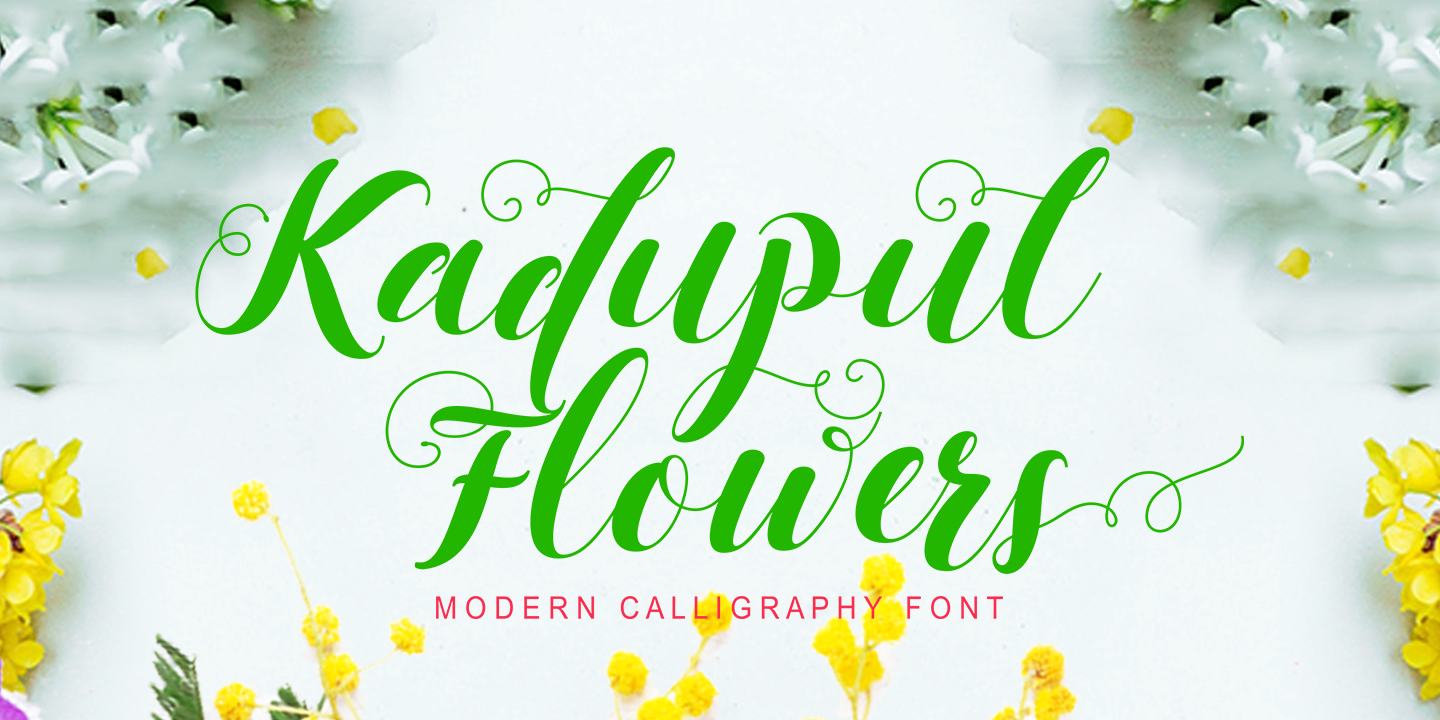
The Kadupul Flowers Font is an exquisitely delicate and enchanting display typeface, often characterized by its flowing, organic lines and a serene, almost ethereal beauty inspired by the rare and ephemeral Kadupul flower. Imagine its graceful characters gracing the covers of spiritual or wellness guides, adding a touch of mystical elegance to high-end spa branding, or creating captivating titles for poetry collections and nature-themed art projects. Its intricate yet subtle forms and gentle curves also make it an excellent choice for bespoke wedding invitations with a botanical theme, luxurious product packaging for natural cosmetics, tranquil social media graphics, and any design where a sense of purity, beauty, and refined artistry is desired. Whether you're aiming for a classic, romantic look or a modern design infused with natural charm, Kadupul Flowers Font delivers with its undeniable beauty, ensuring your visuals are both inviting and truly memorable.
What makes Kadupul Flowers Font so exciting is its profound ability to infuse designs with an immediate sense of peace, natural beauty, and a quiet, profound elegance. Inspired by a flower that blooms only at night and with a fleeting lifespan, this font embodies a unique blend of fragility and exquisite detail. In a visual landscape often dominated by bold or conventional typefaces, this font offers a refreshing dive into subtle artistry and serene expression. It’s more than just a typeface; it’s a design element that can instantly set a tranquil, sophisticated, and deeply evocative tone for a project, making content feel more intimate and spiritually resonant. Designers will find it an invaluable asset for creating visuals that truly connect with an audience seeking beauty, contemplation, and a unique, natural charm.
The Kadupul Flowers Font family is typically structured to offer a range of styles that enhance its artistic and graceful appeal. Beyond the primary Kadupul Flowers Regular typeface, which beautifully captures the essence of delicate flora, you might find companion styles such as a more impactful Kadupul Flowers Bold for stronger emphasis on titles, or perhaps Kadupul Flowers Light for an even more ethereal presence. Given its often decorative and nature-inspired themes, the family may also include various stylistic alternates, ligatures, or ornamental elements (like subtle leaf or petal motifs) that allow for even greater customization and intricate design possibilities, perfecting its ability to evoke the delicate beauty of the flower itself. These diverse family members provide designers with the flexibility to establish a clear typographic hierarchy and maintain a consistent, elegant, and naturally inspired aesthetic across all elements of their project, from prominent titles to subtle decorative flourishes.